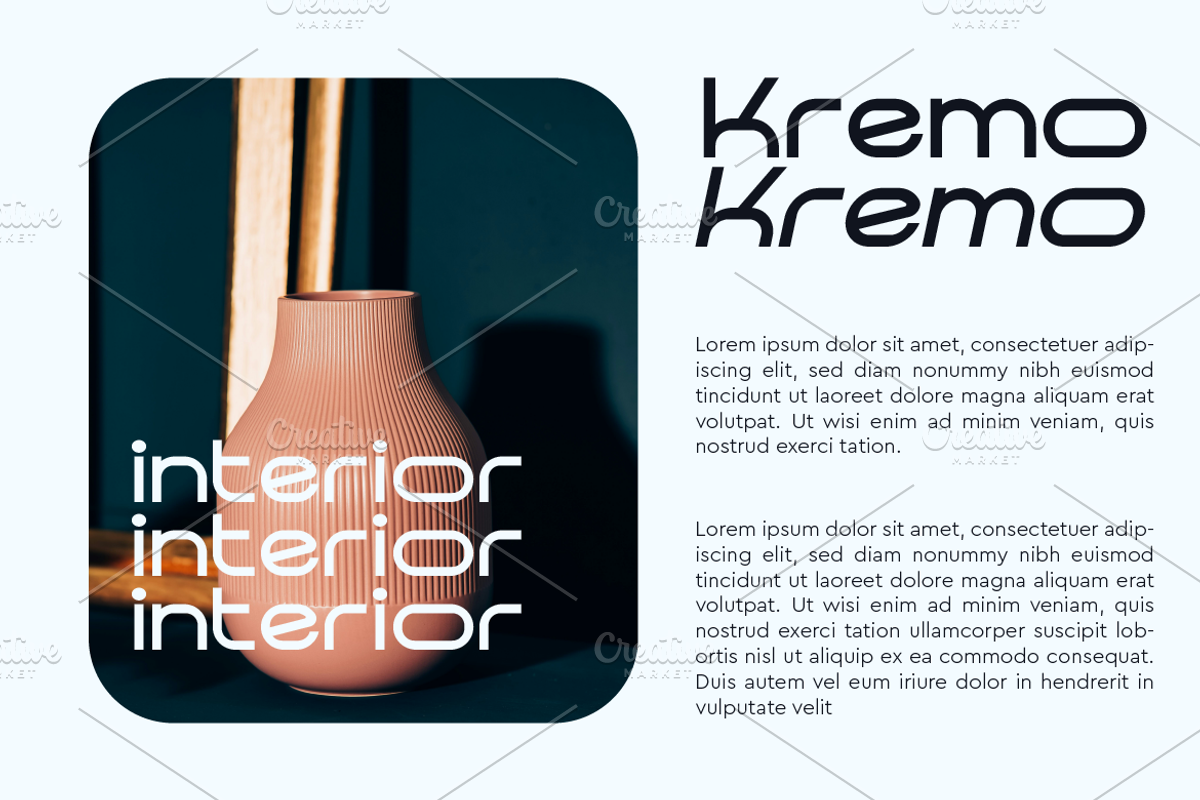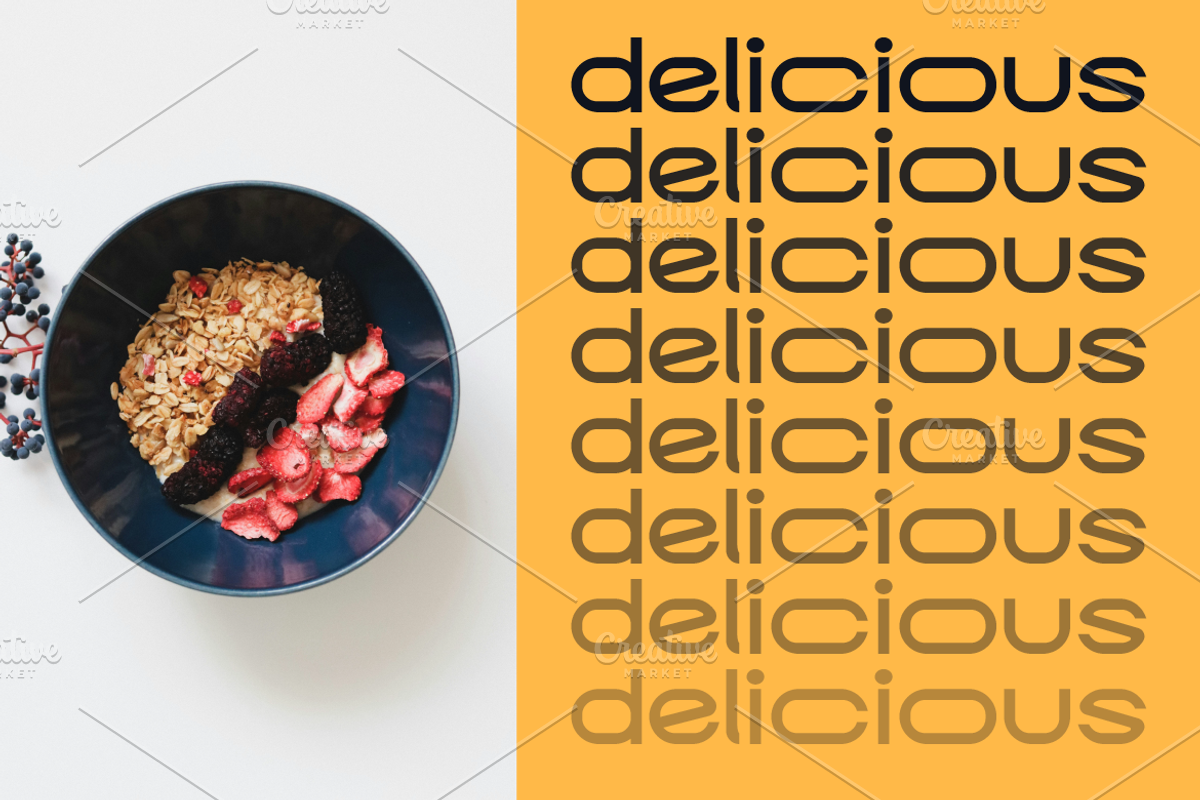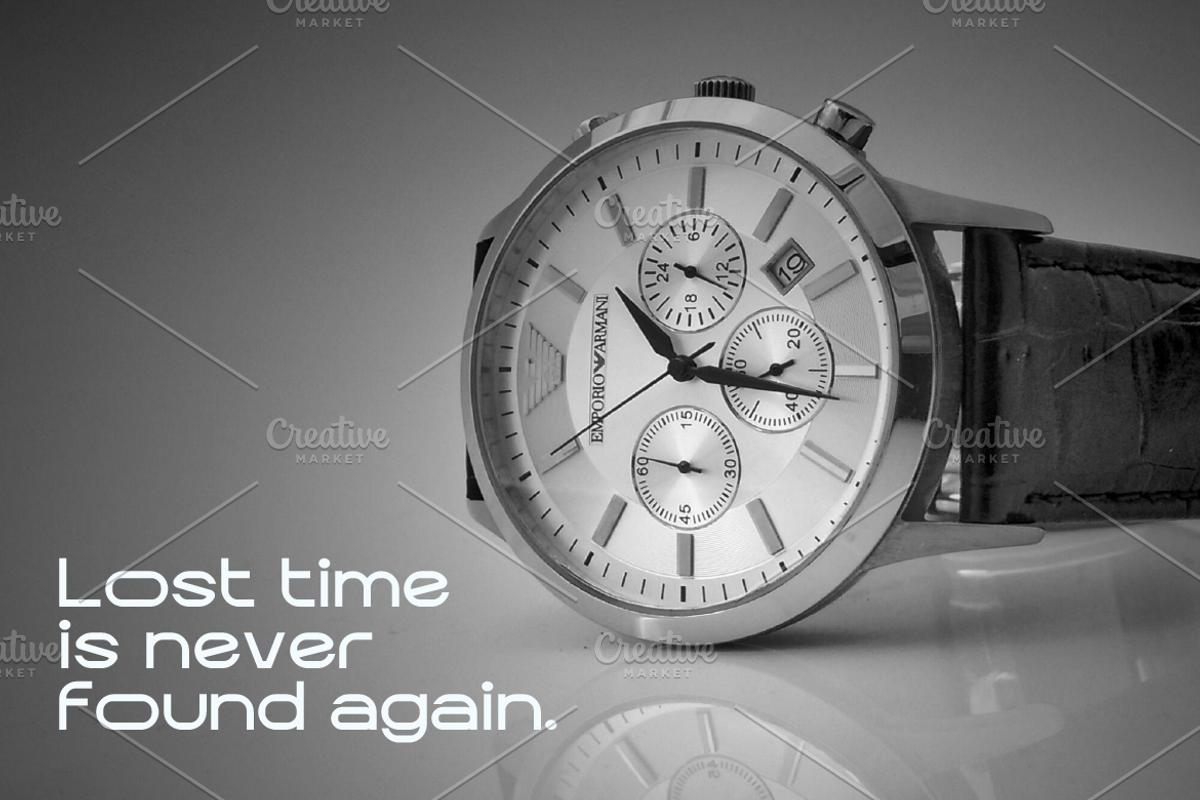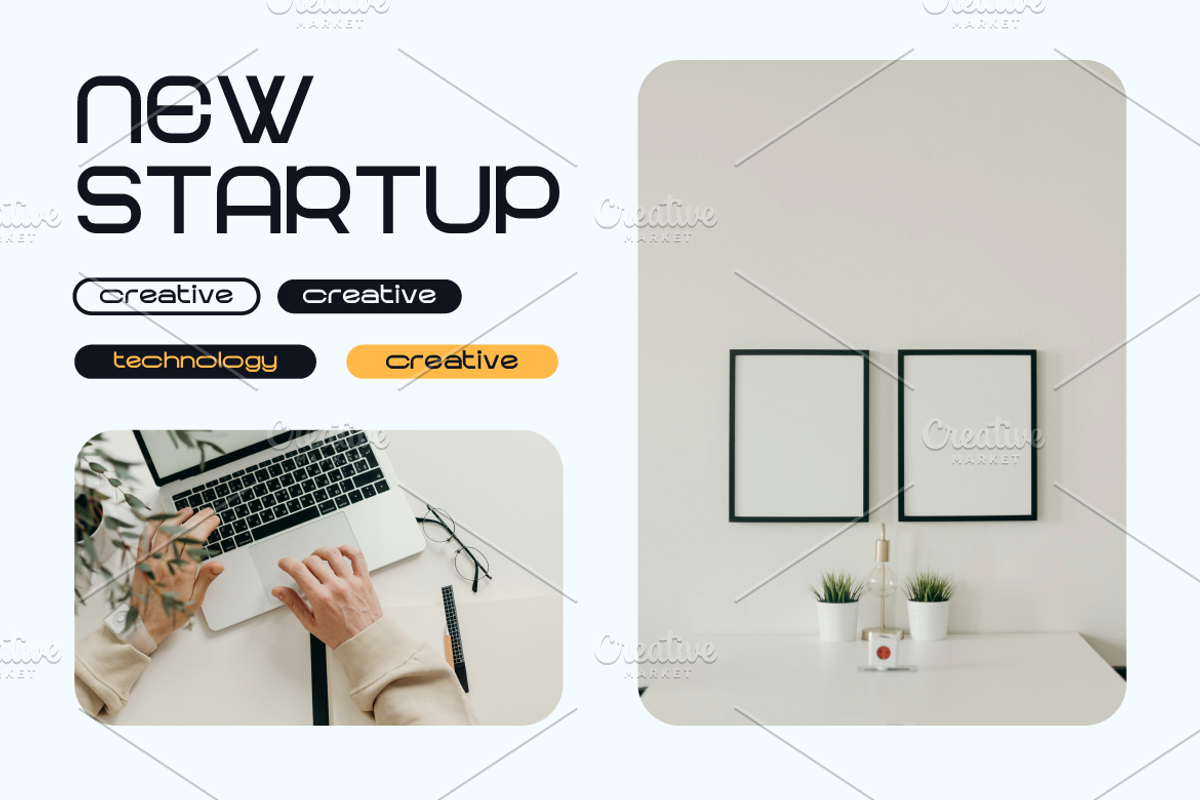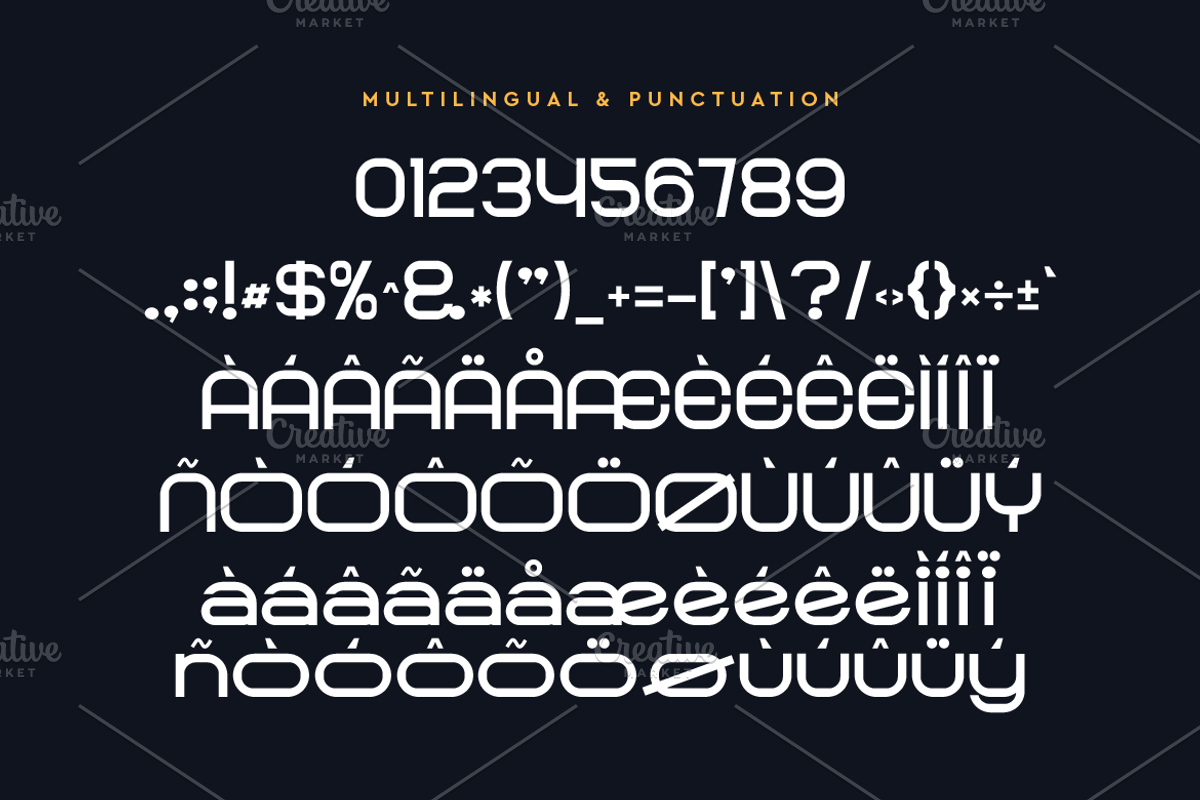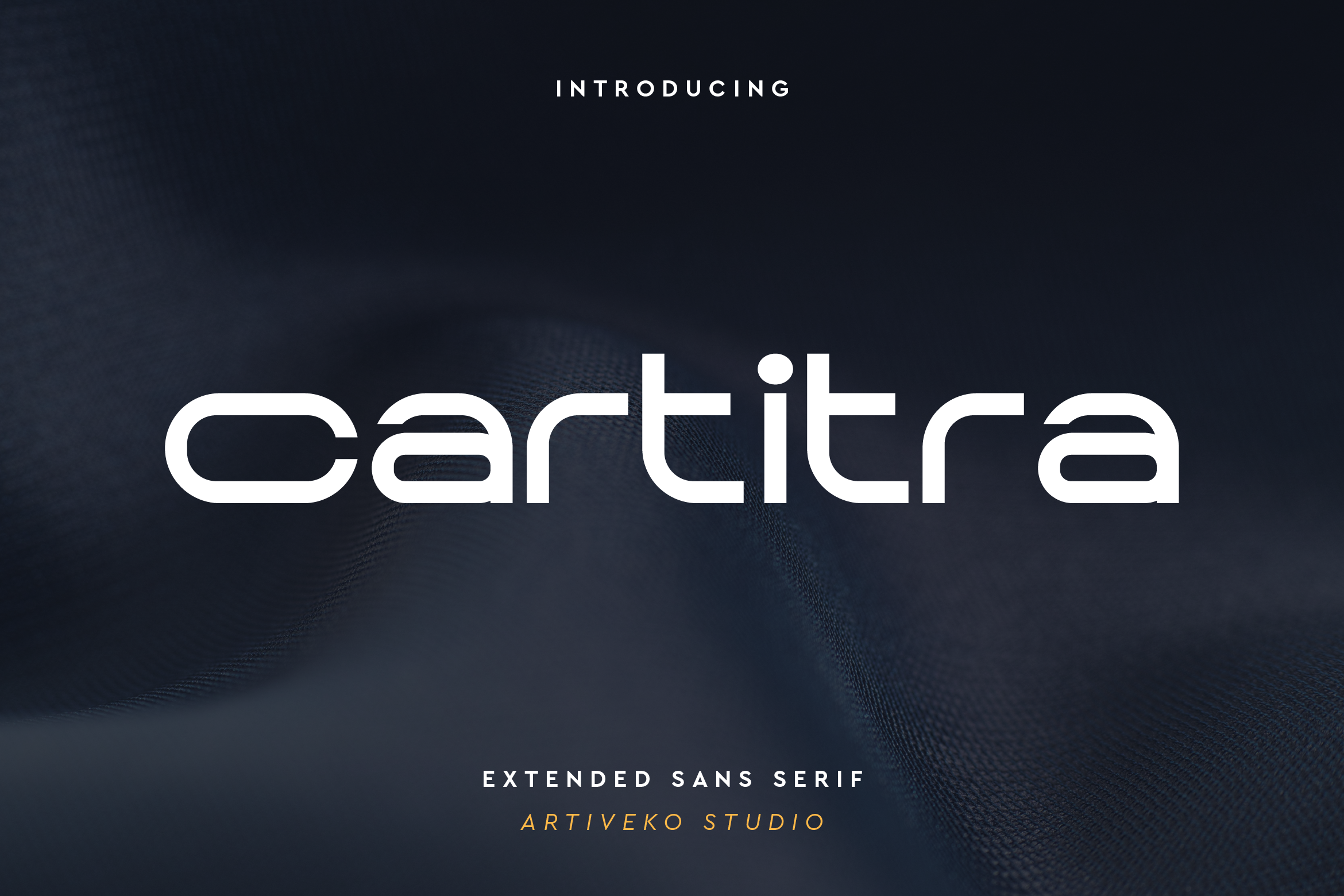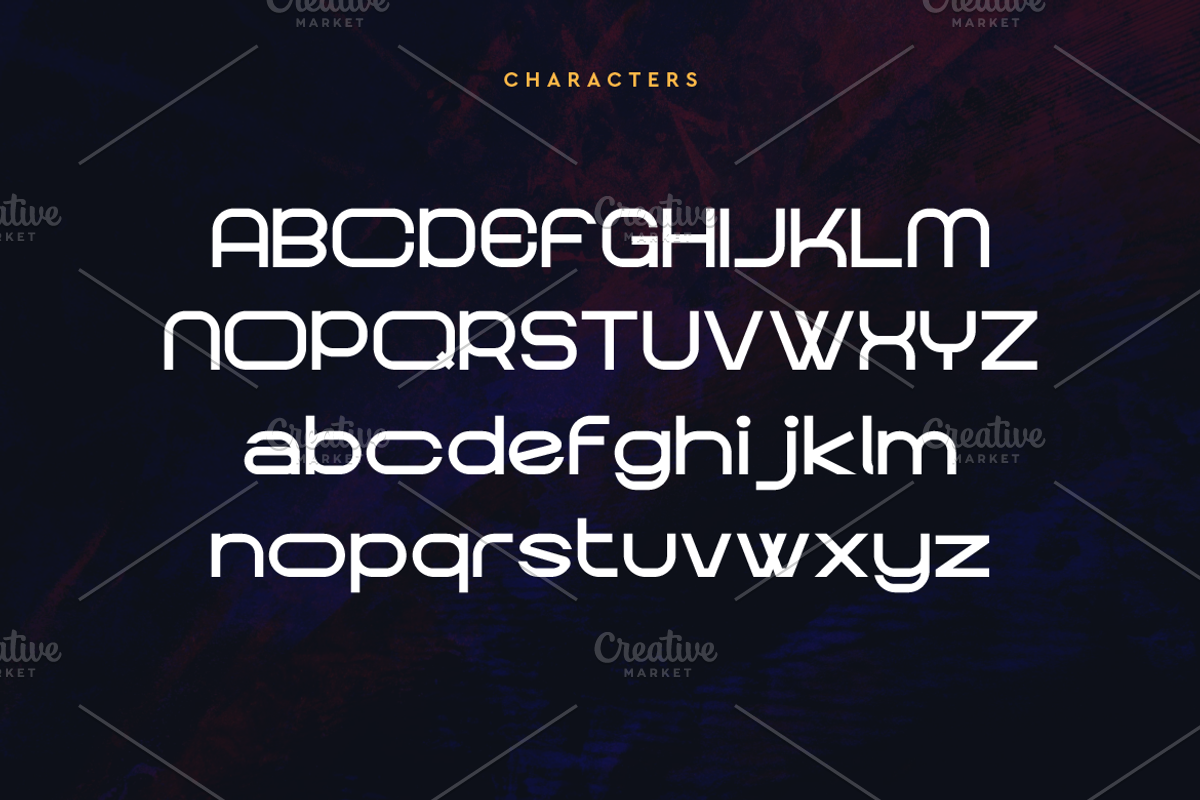
Cartitra Expanded Modern Font
Cartitra is a modern sans serif font, uniquely designed by Iwan Alwan. It features distinct variations between uppercase and lowercase characters, adding versatility to your projects. With multilingual support, Citatra is perfect for diverse applications such as magazines, business cards, posters, and more. Its clean lines and contemporary style make it a go-to choice for impactful, stylish designs.